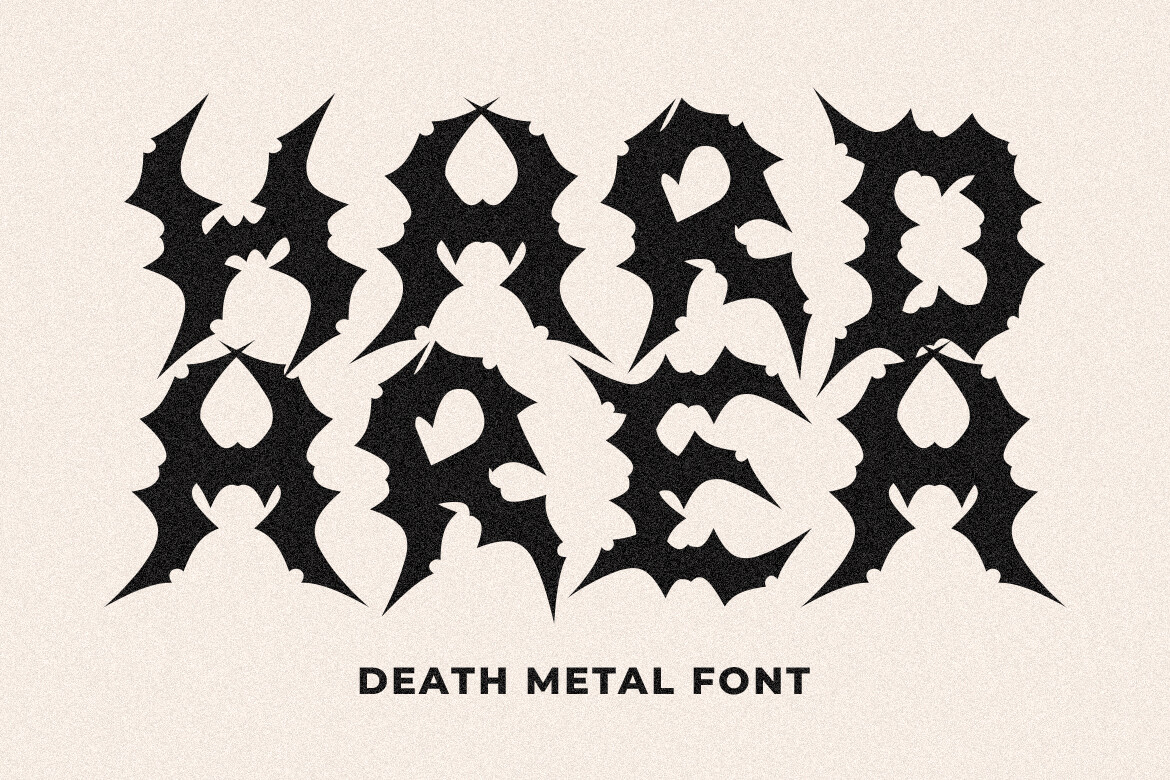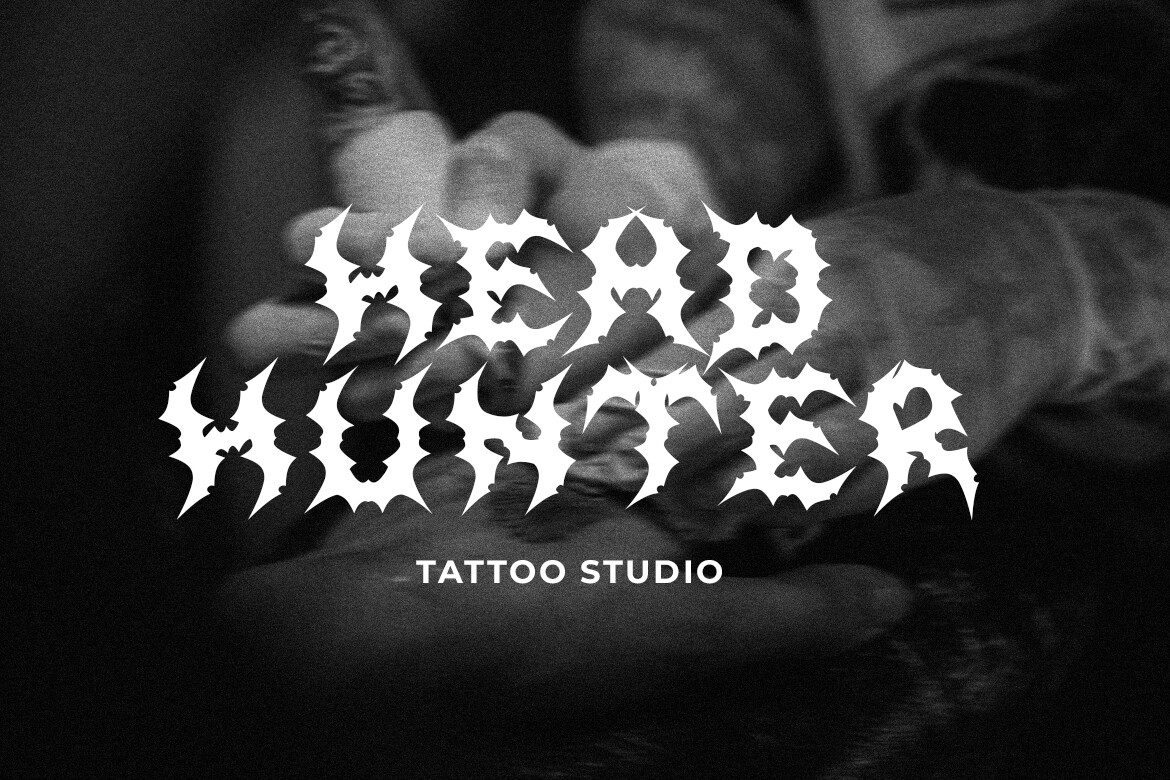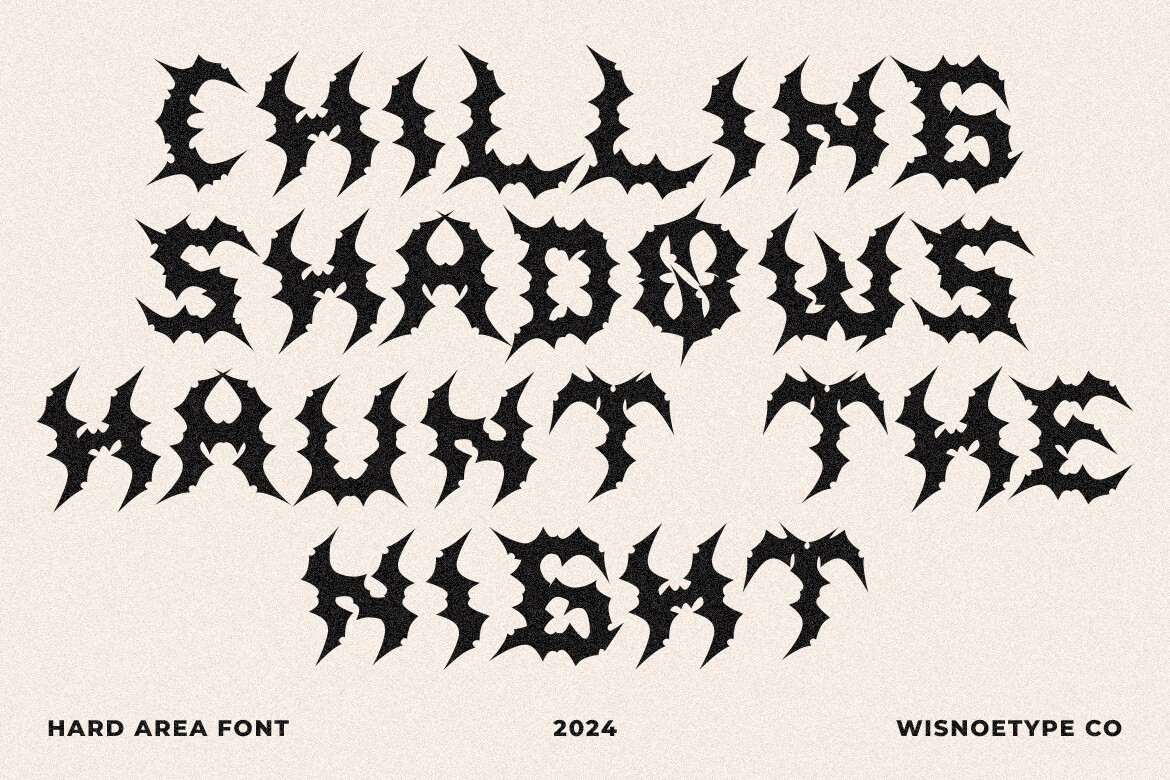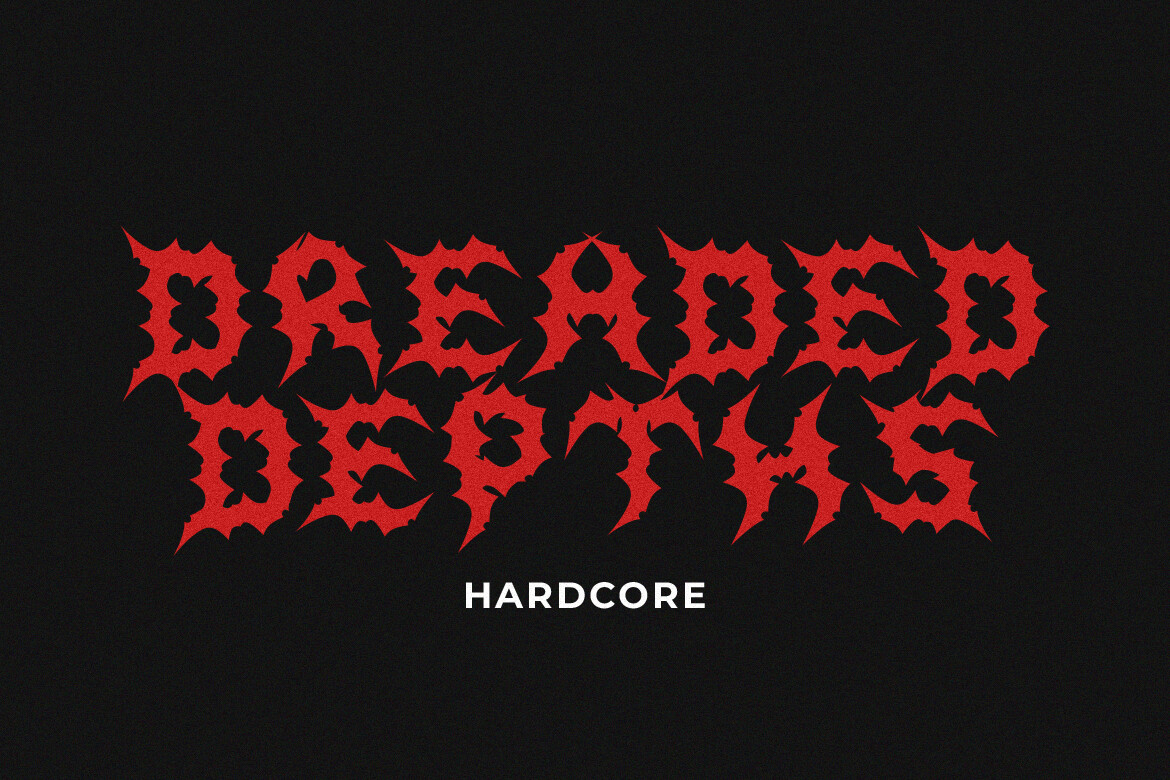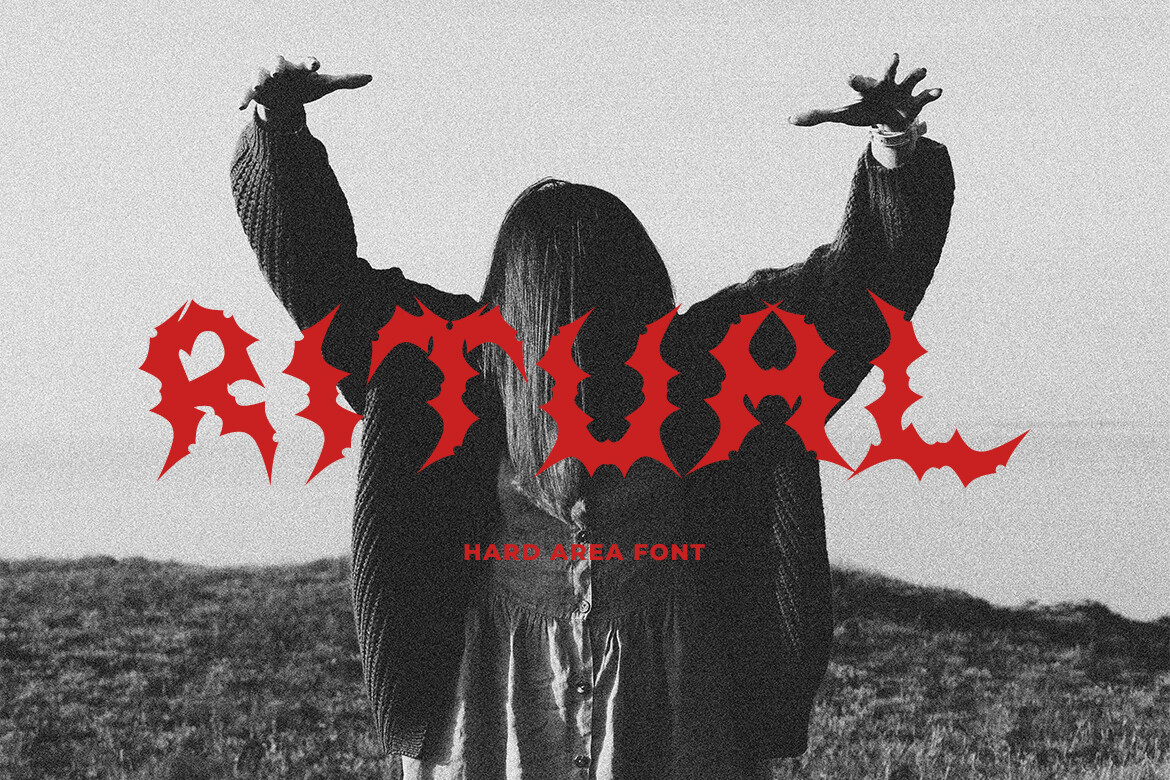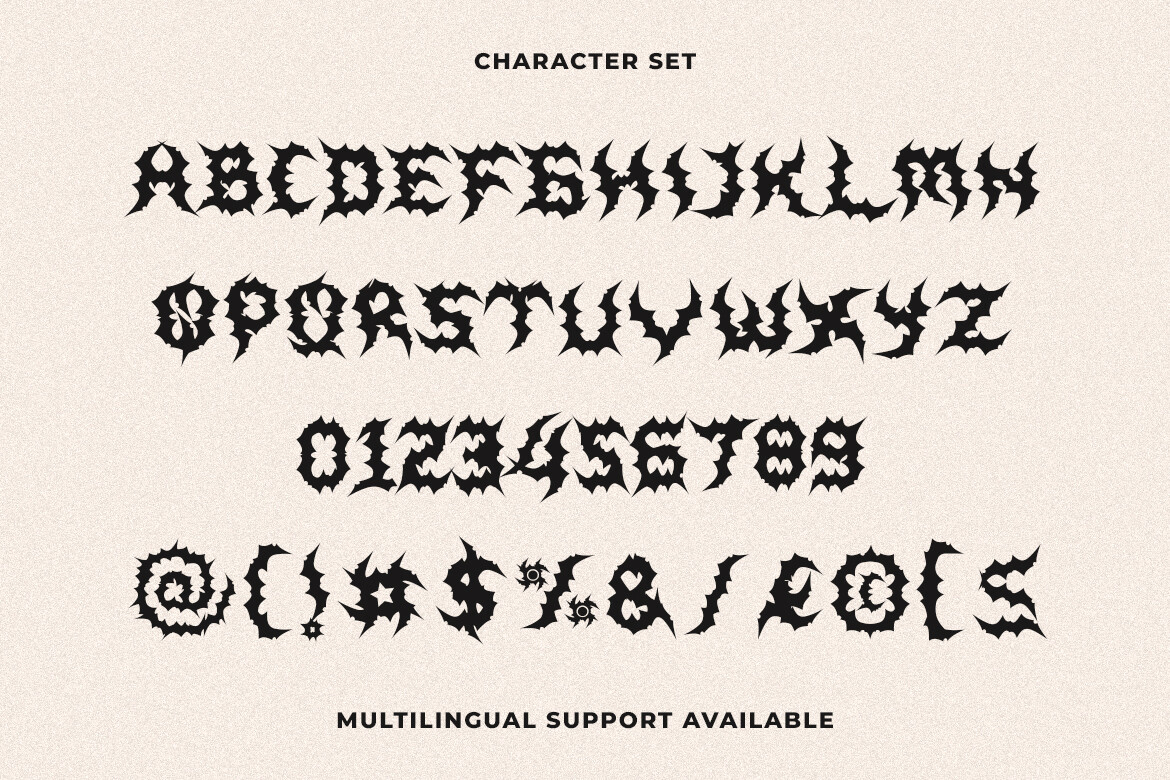
Hard Area Font
About Hard Area Font
Hard Area is a type of blackletter writing in today’s metal style which is created carefully to form a dynamic font. This font is suitable for screen printing, posters, cassettes, films or anything else tailored to your needs.